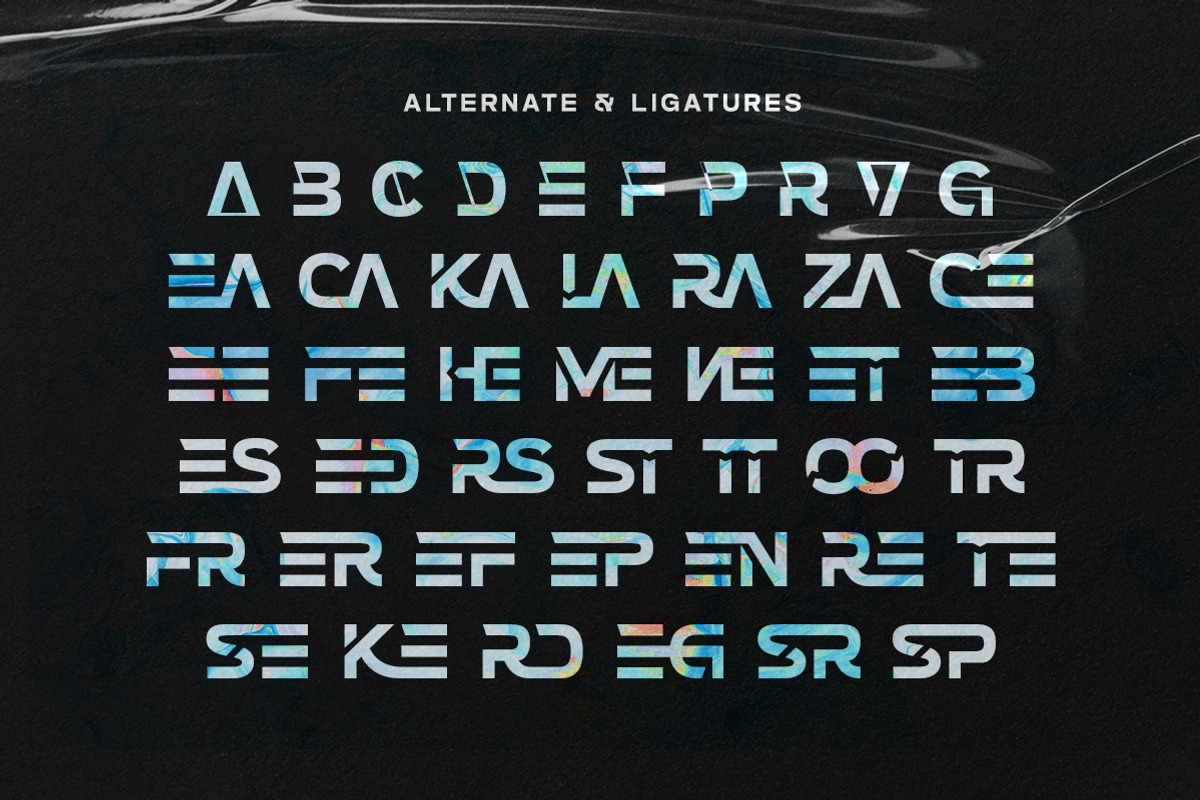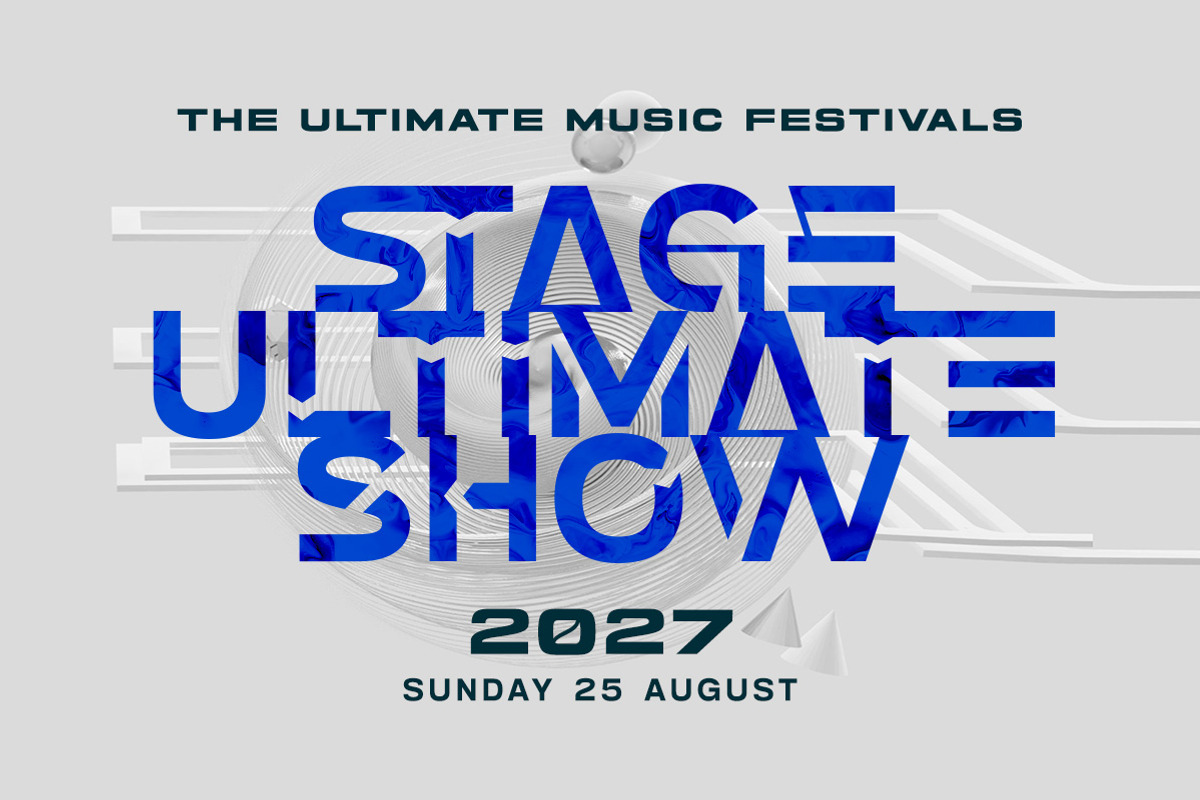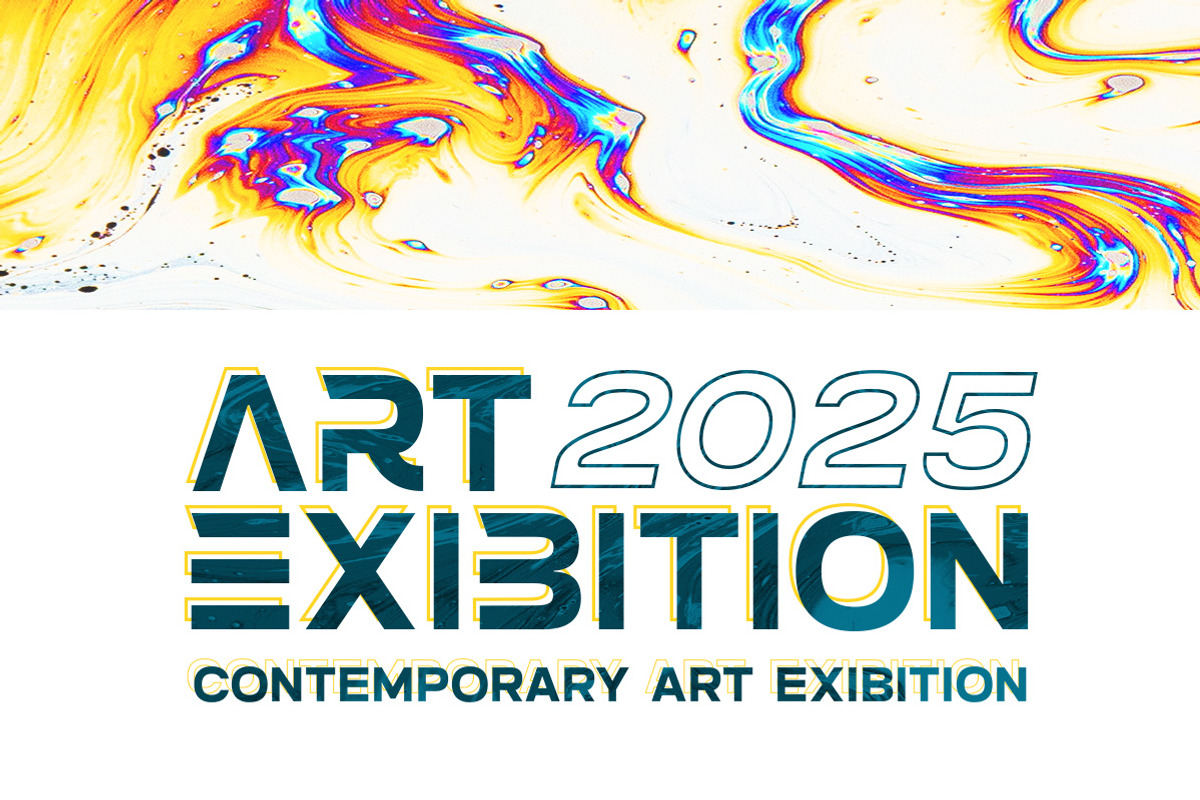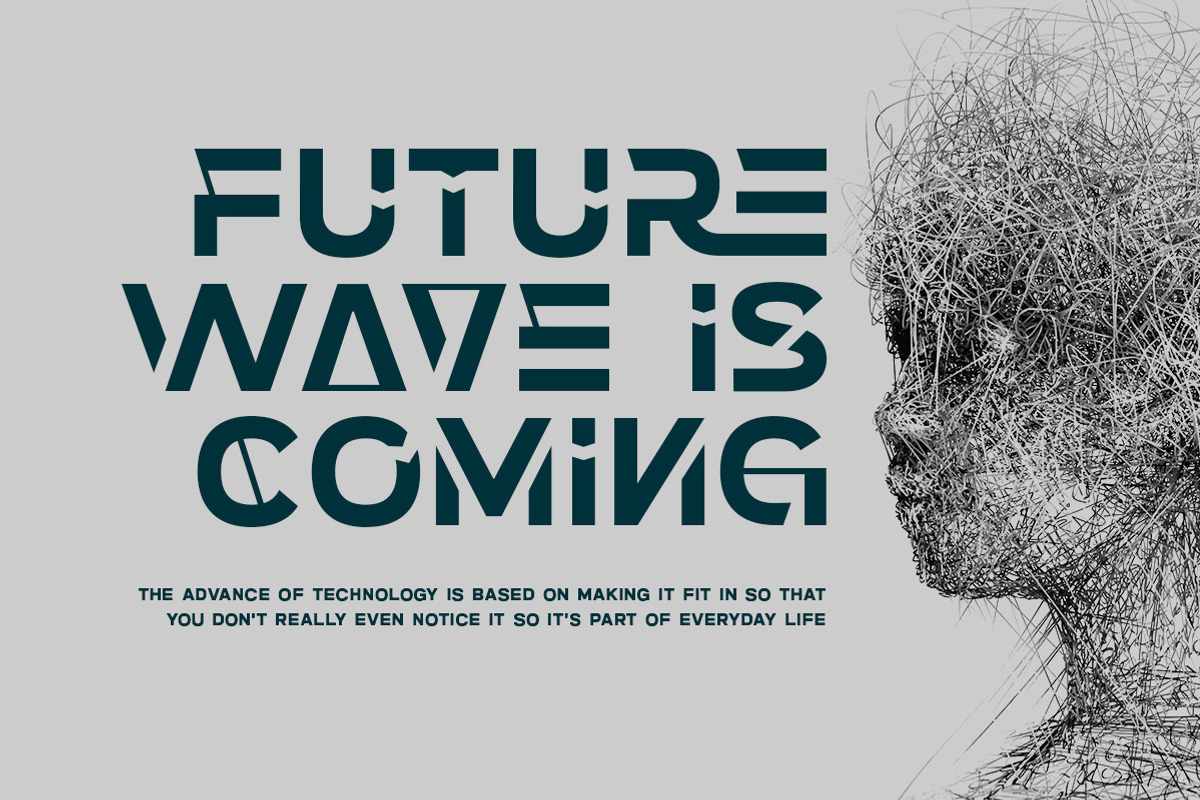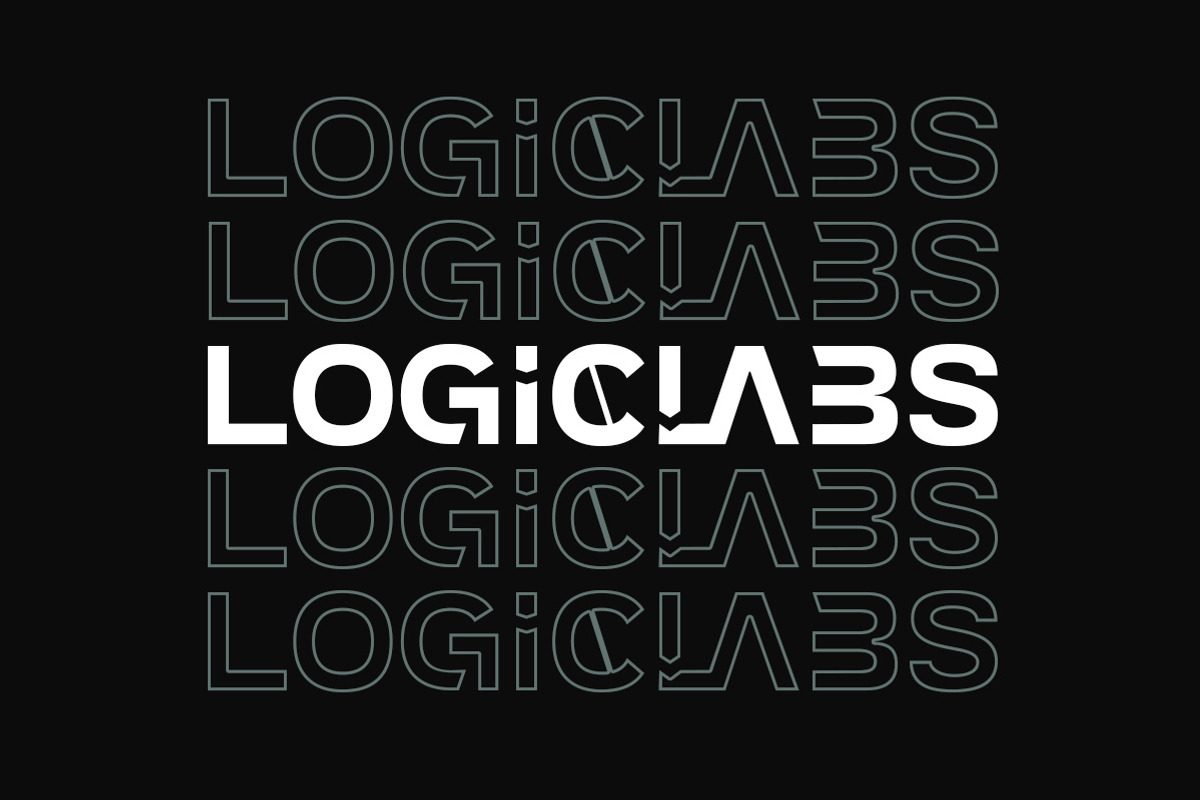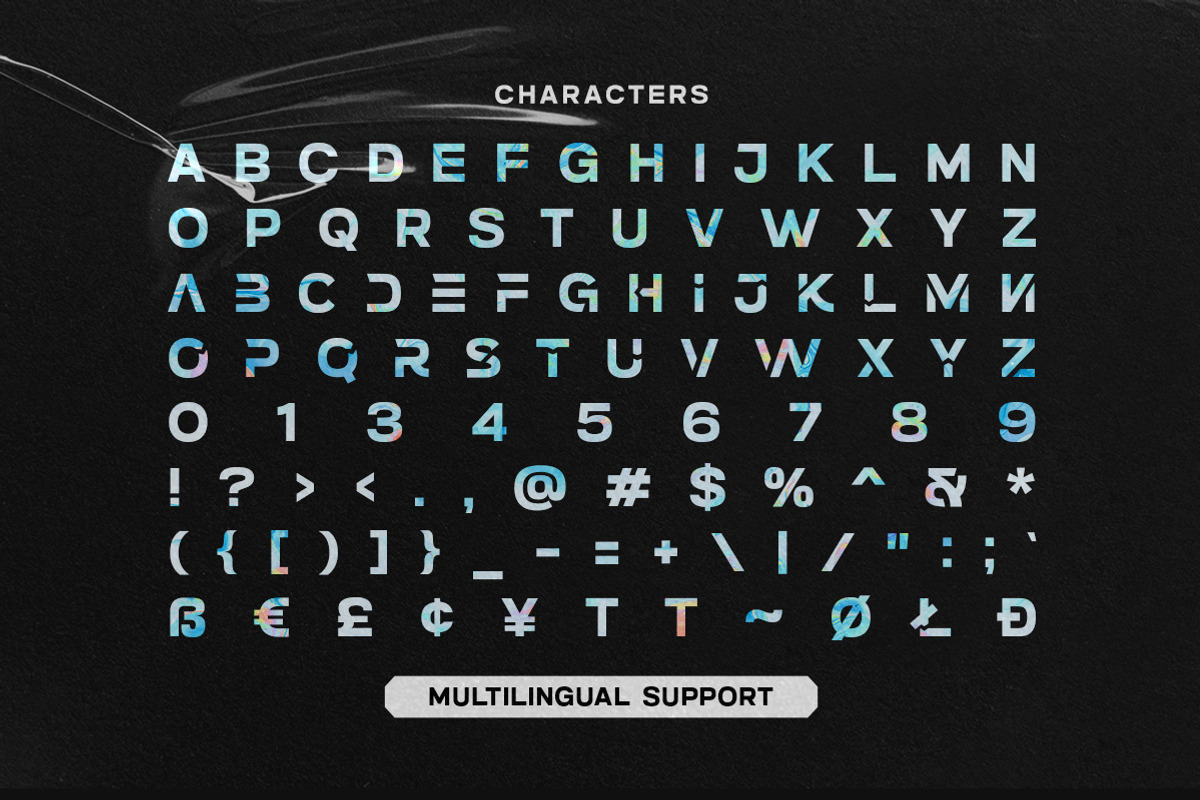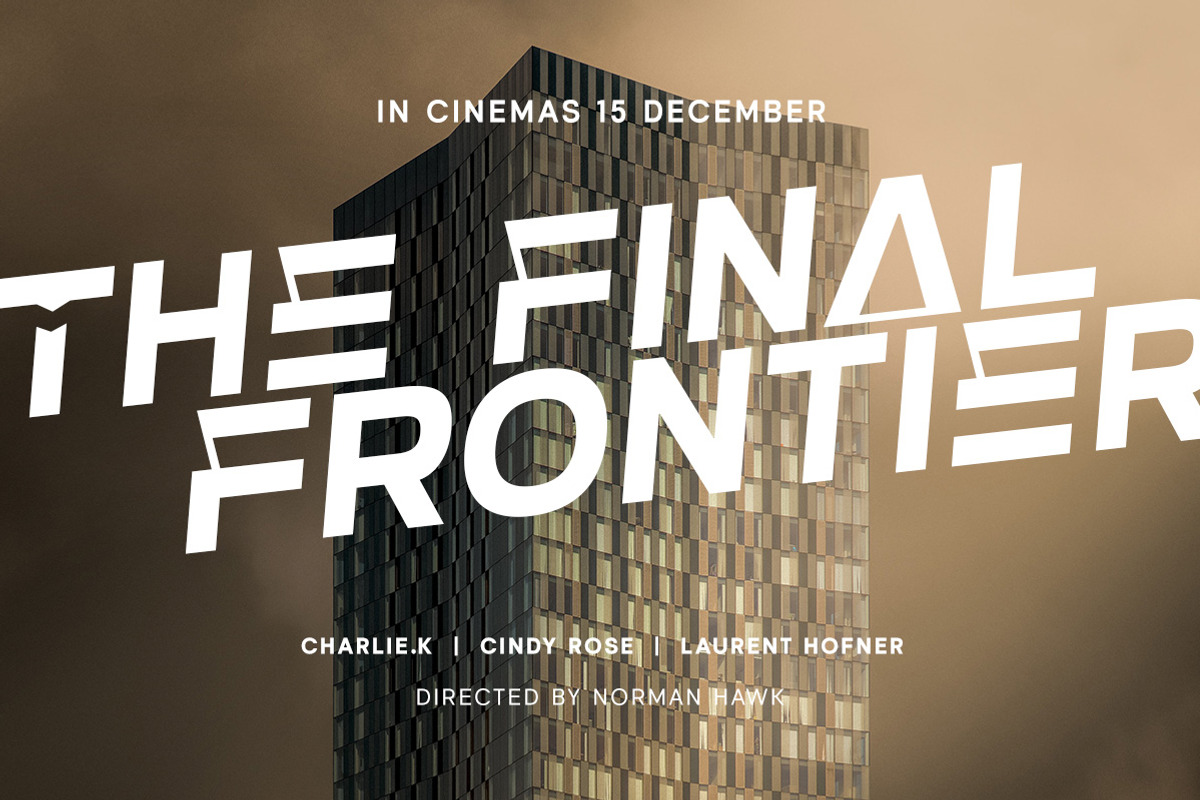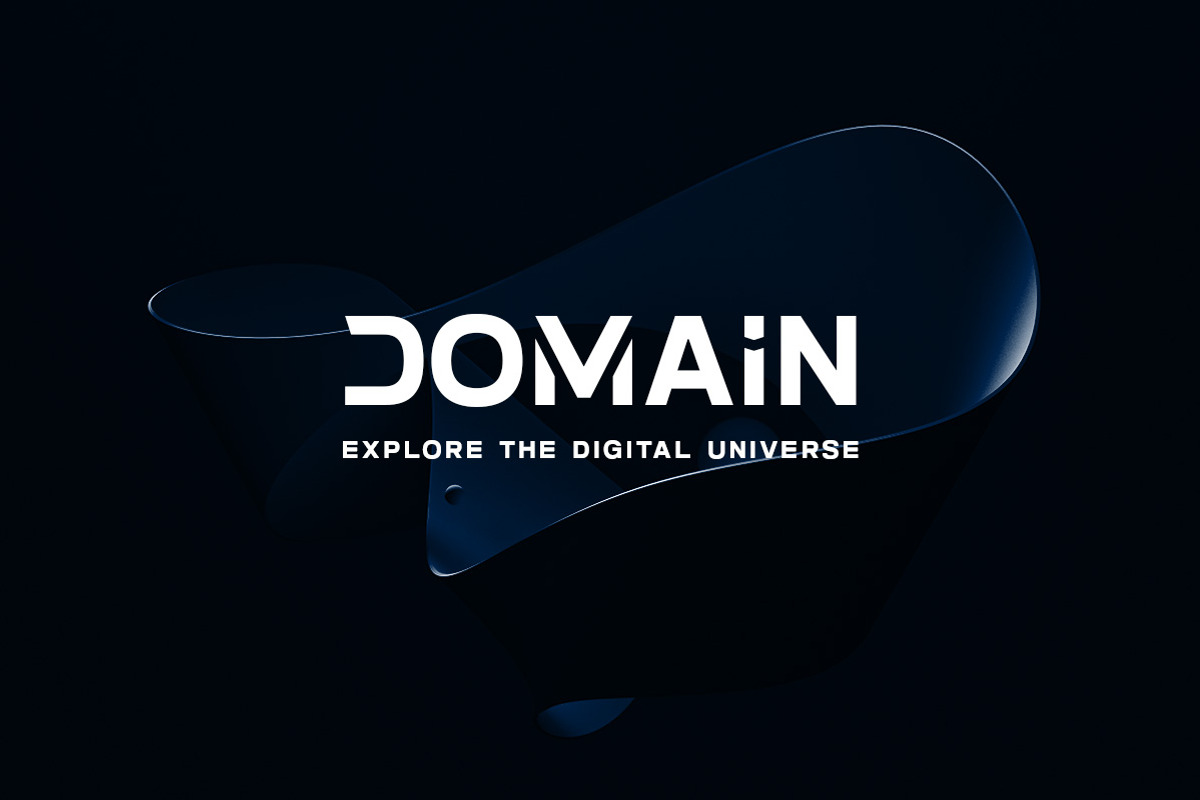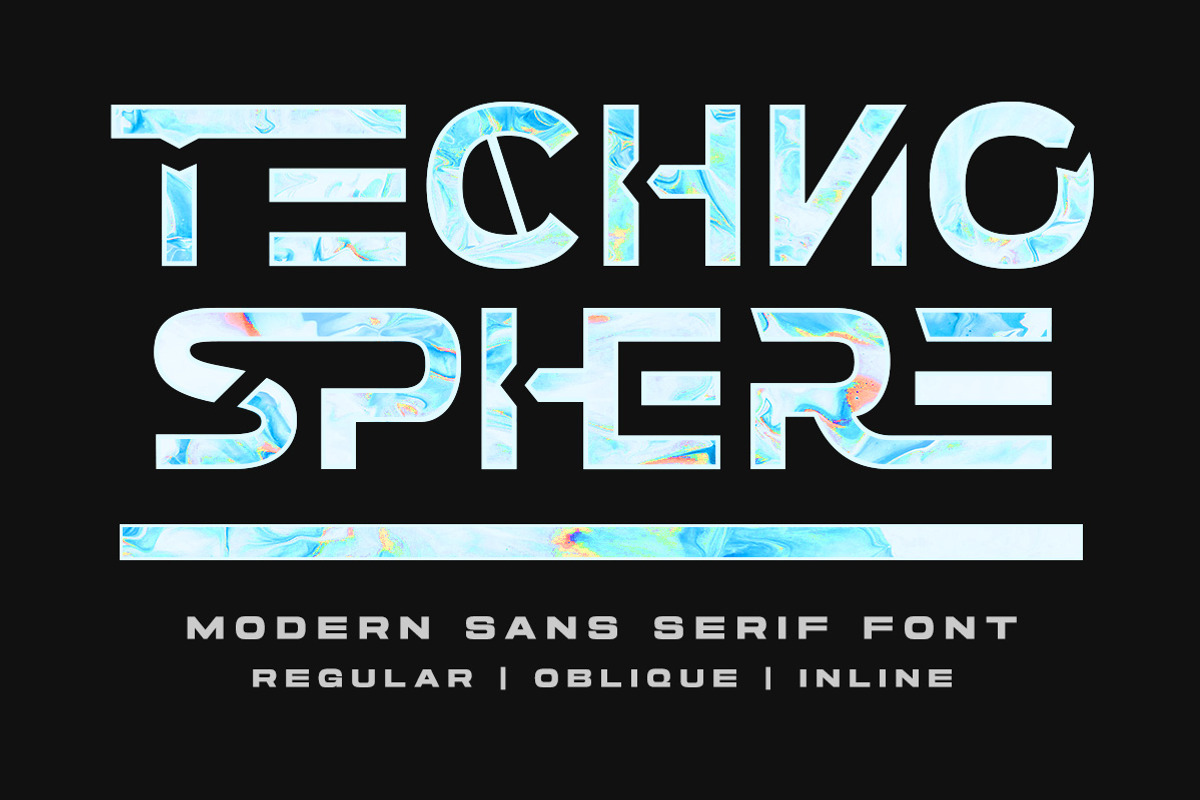
Techno Sphere - Modern Sans Serif
Techno Sphere is the epitome of modernity and technology in font form. With its bold and futuristic design that convey a sense of precision and efficiency. It comes with 3 style, Regular, Oblique & Inline. With Techno Sphere, your text will stand out as the ultimate embodiment of progress and innovation.